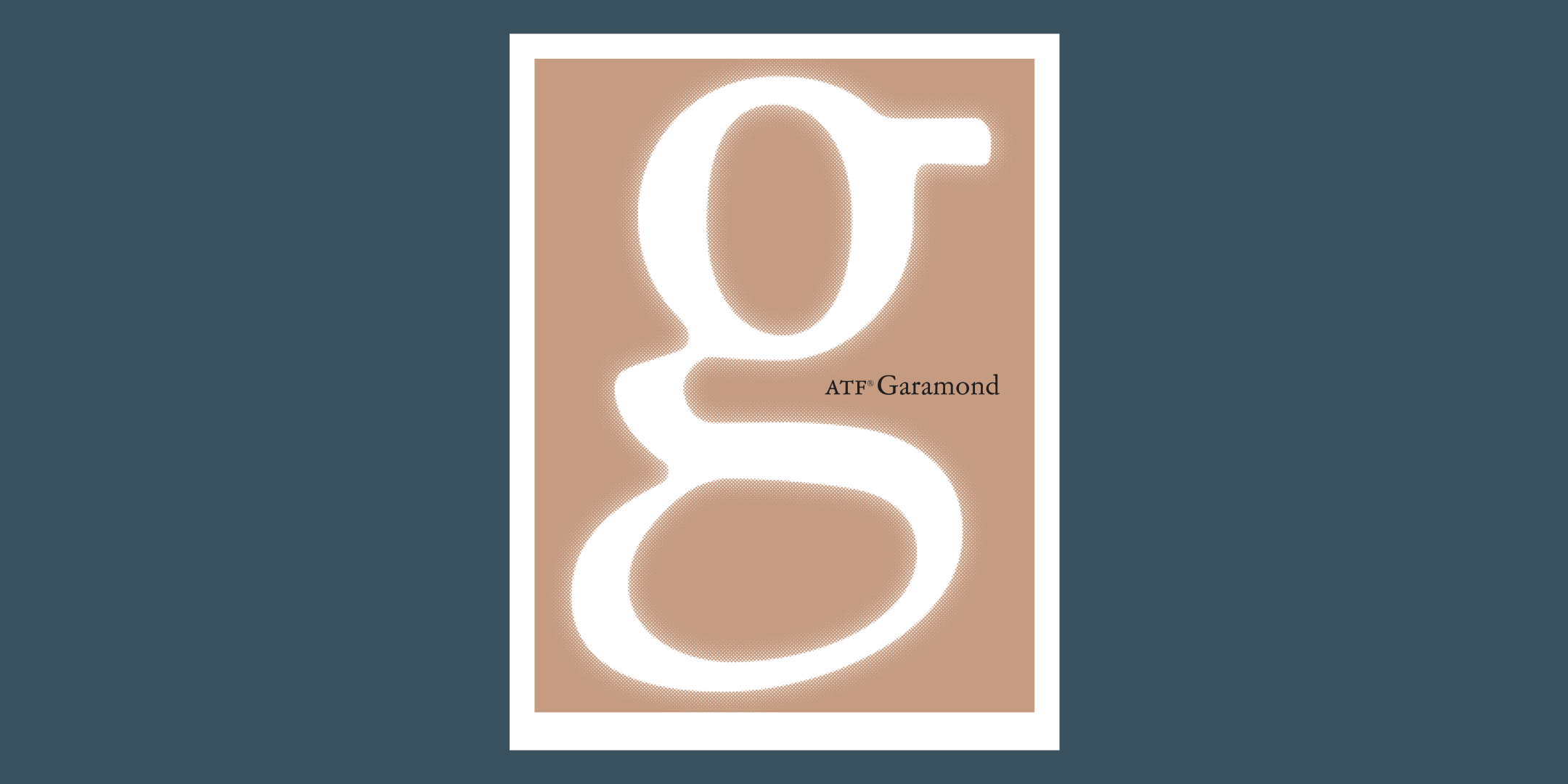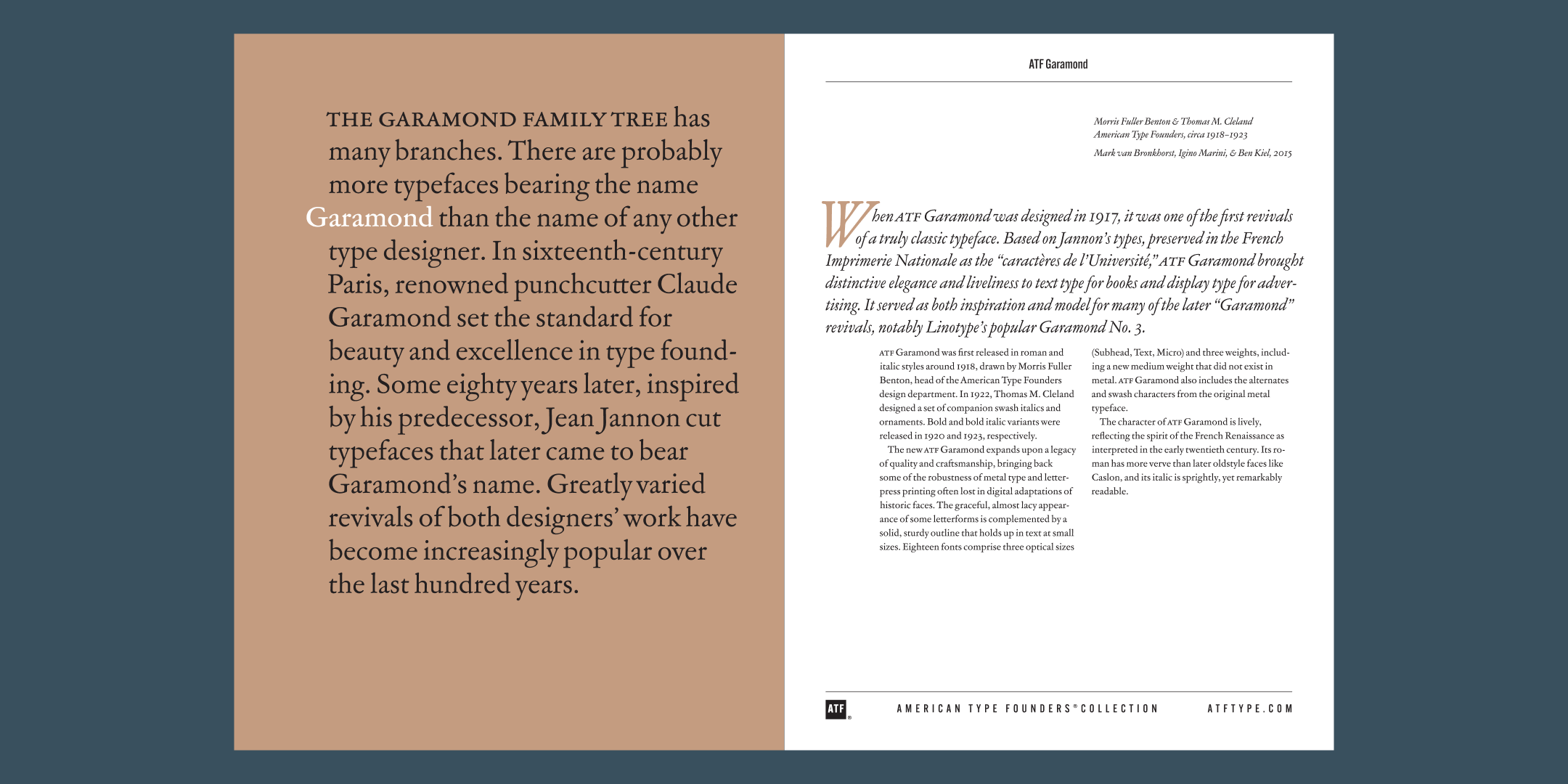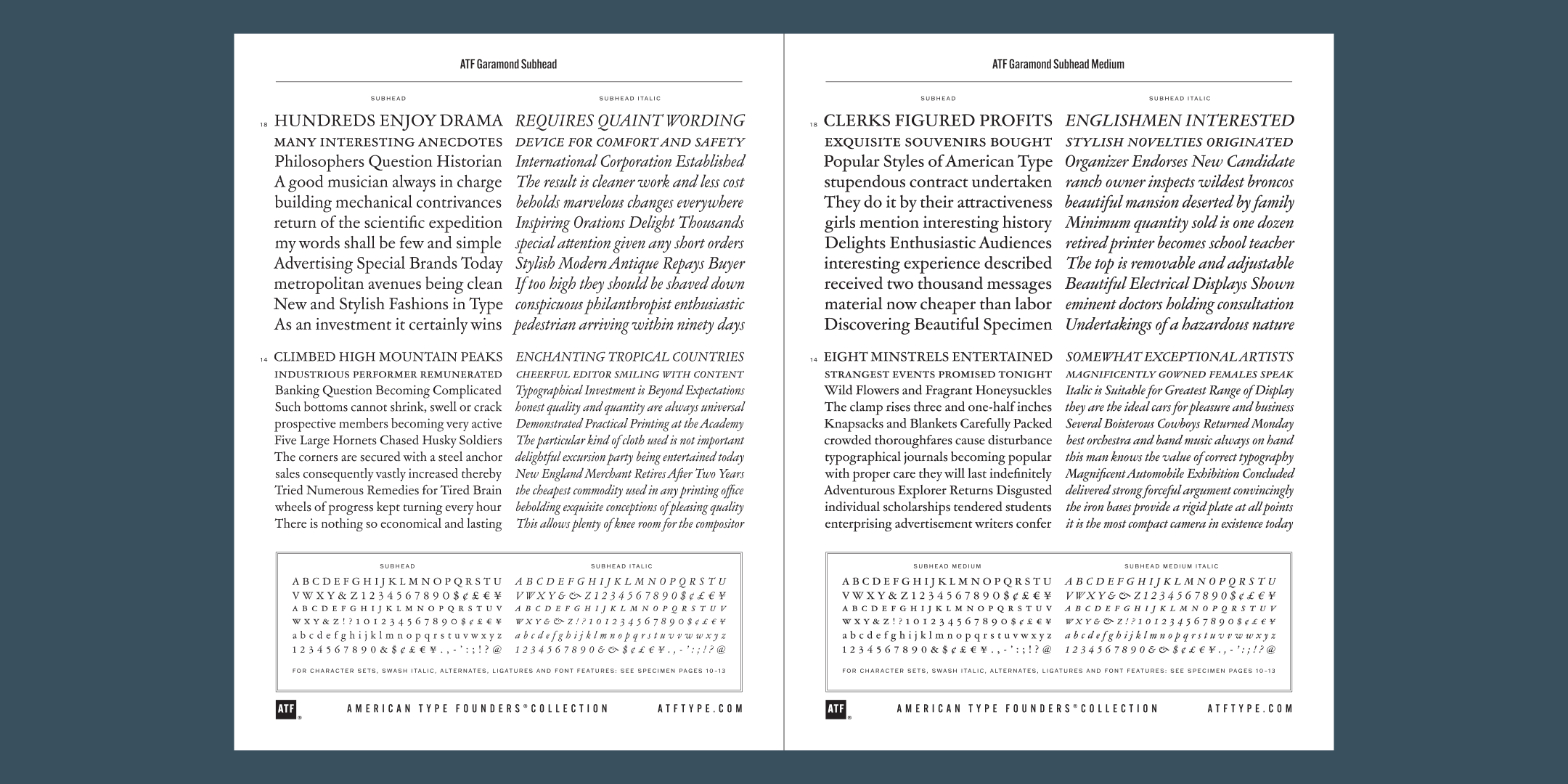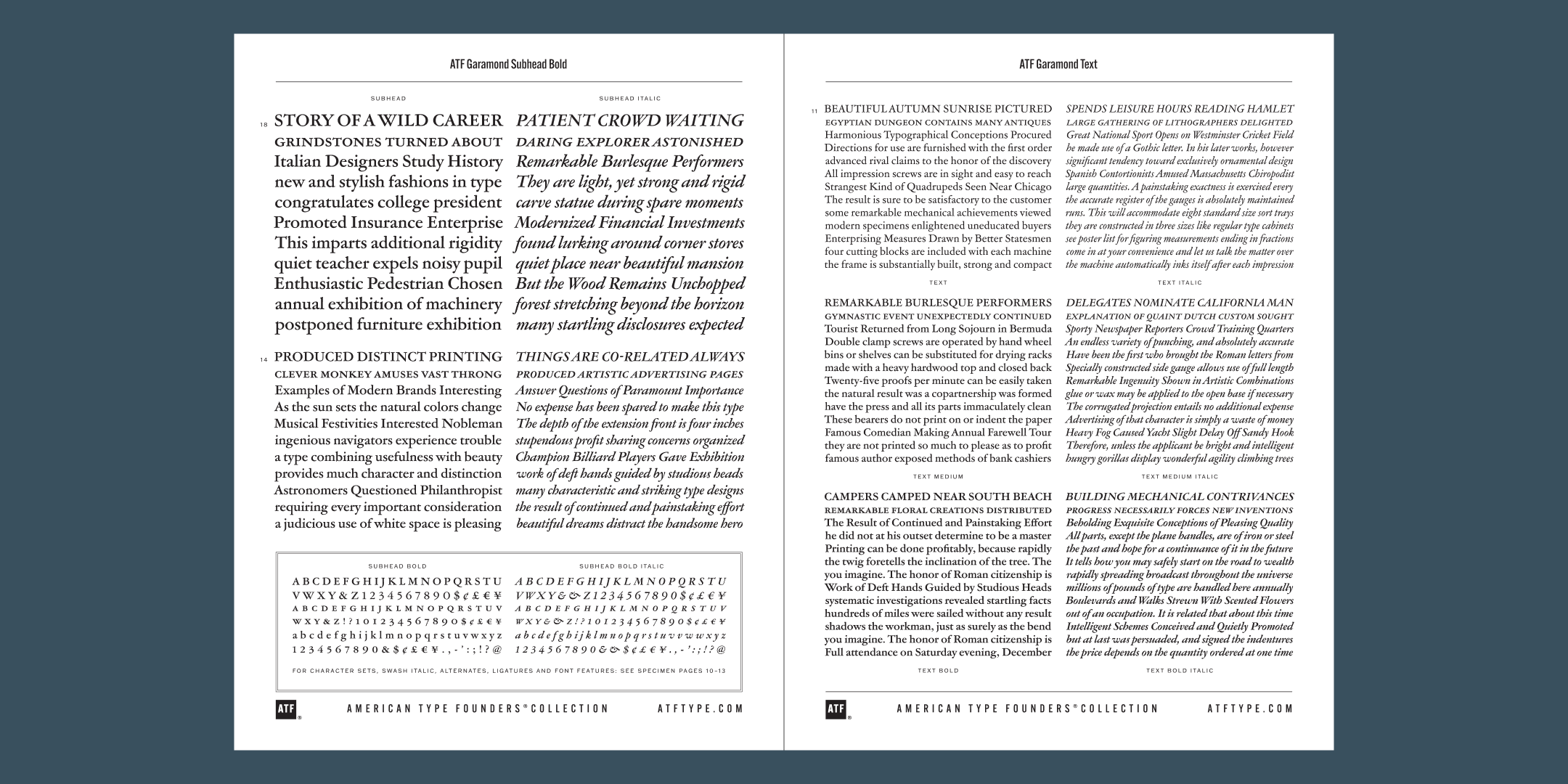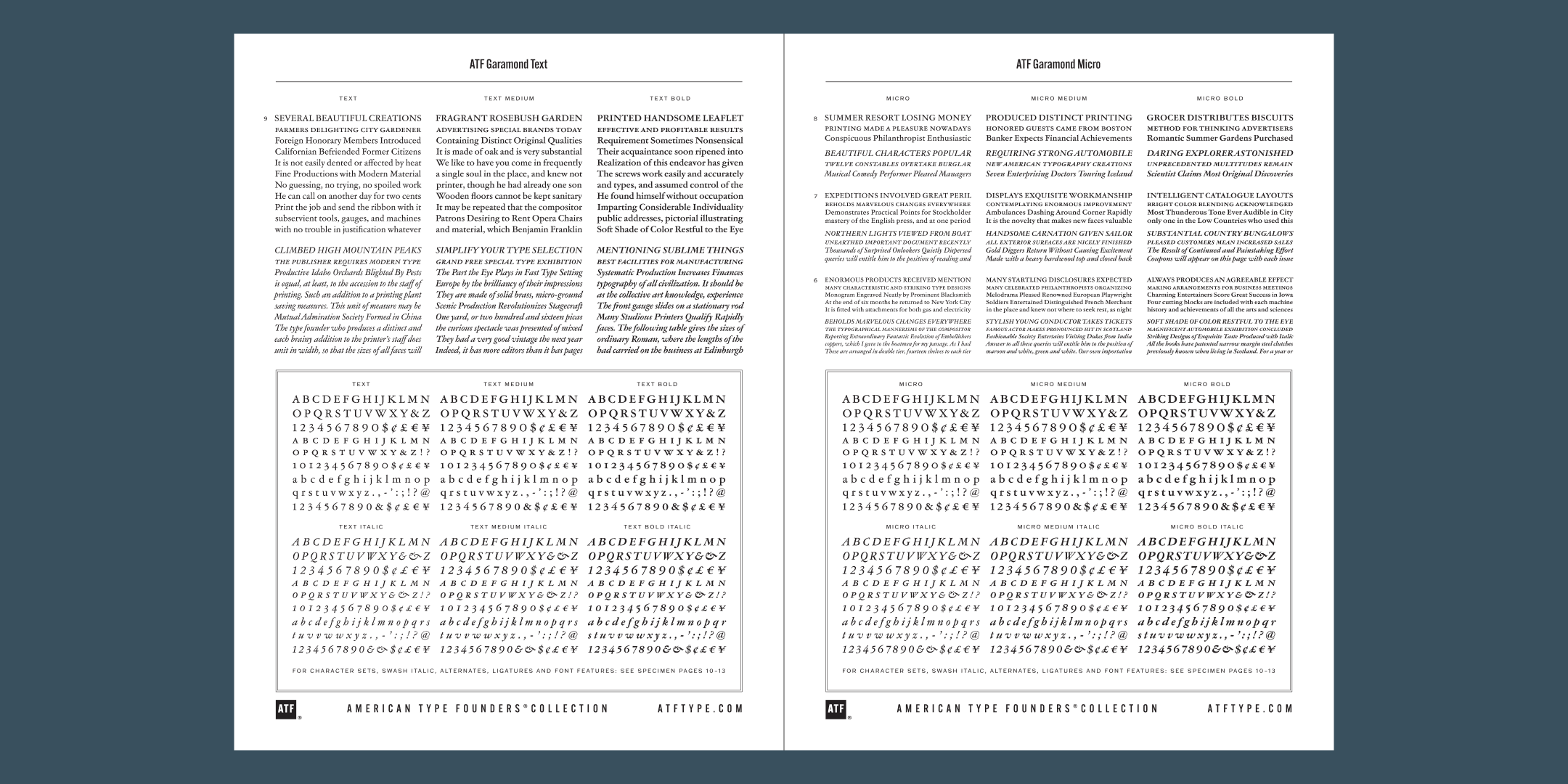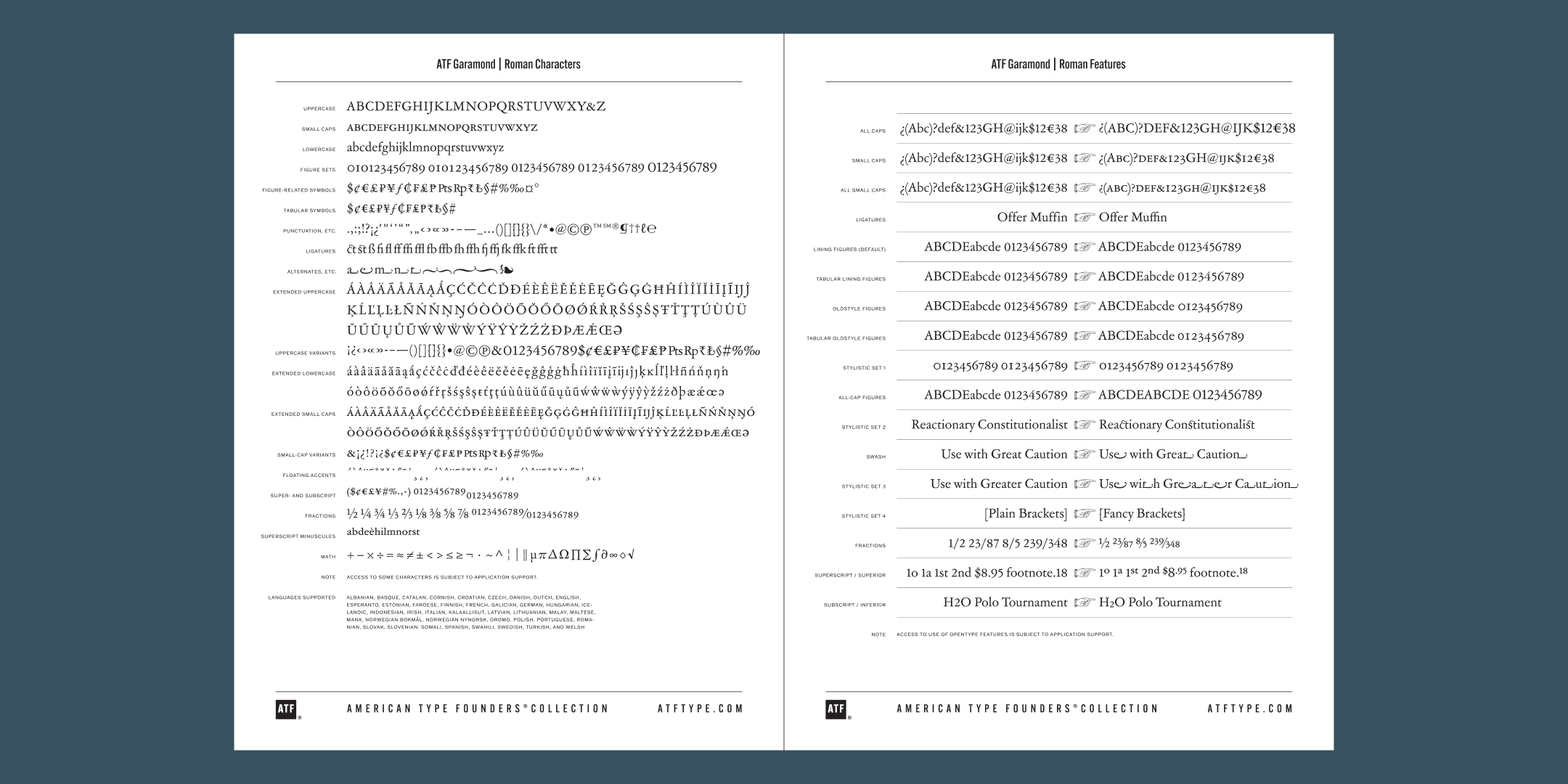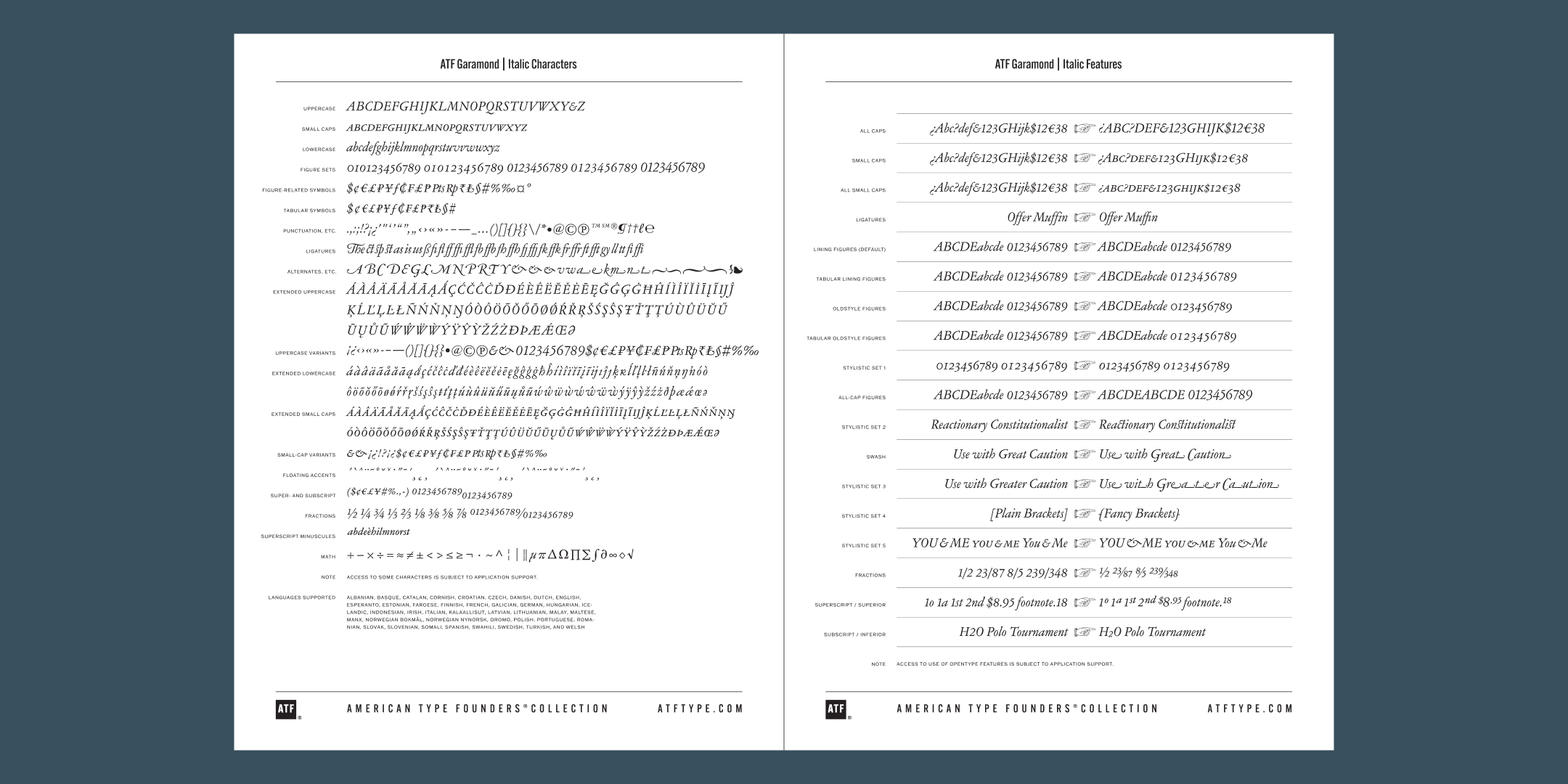
Garamond
By Morris Fuller Benton, Thomas M. Cleland, Mark Van Bronkhorst, Igino Marini & Ben Kiel
The Garamond family tree has many branches. There are probably more typefaces bearing the name Garamond than the name of any other type designer. In sixteenth-century Paris, renowned punchcutter Claude Garamond set the standard for beauty and excellence in type founding. Some eighty years later, inspired by his predecessor, Jean Jannon cut typefaces that later came to bear Garamond’s name. Greatly varied revivals of both designers’ work have become increasingly popular over the last hundred years.
When ATF Garamond was designed in 1917, it was one of the first revivals of a truly classic typeface. Based on Jannon’s types, preserved in the French Imprimerie Nationale as the “caractères de l’Université,” ATF Garamond brought distinctive elegance and liveliness to text type for books and display type for advertising. It served as both inspiration and model for many of the later “Garamond” revivals, notably Linotype’s popular Garamond No. 3.
ATF Garamond was first released in roman and italic styles around 1918, drawn by Morris Fuller Benton, head of the American Type Founders design department. In 1922, Thomas M. Cleland designed a set of companion swash italics and ornaments. Bold and bold italic variants were released in 1920 and 1923, respectively.
The new ATF Garamond expands upon a legacy of quality and craftsmanship, bringing back some of the robustness of metal type and letterpress printing often lost in digital adaptations of historic faces. The graceful, almost lacy appearance of some letterforms is complemented by a solid, sturdy outline that holds up in text at small sizes. Eighteen fonts comprise three optical sizes (Subhead, Text, Micro) and three weights, including a new medium weight that did not exist in metal. ATF Garamond also includes the alternates and swash characters from the original metal typeface.
The character of ATF Garamond is lively, reflecting the spirit of the French Renaissance as interpreted in the early twentieth century. Its roman has more verve than later oldstyle faces like Caslon, and its italic is sprightly, yet remarkably readable.